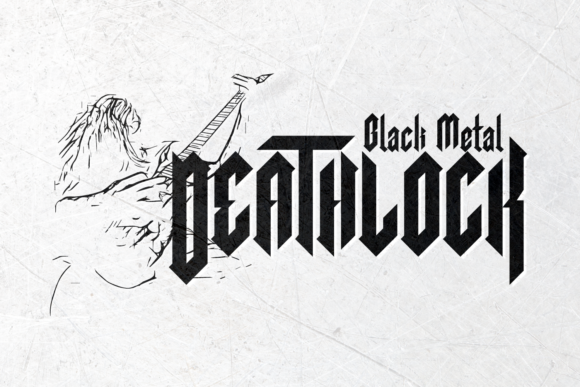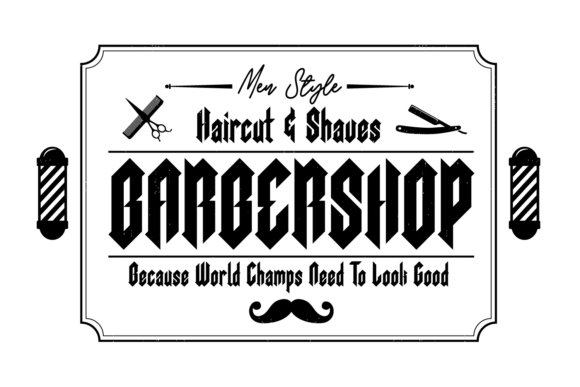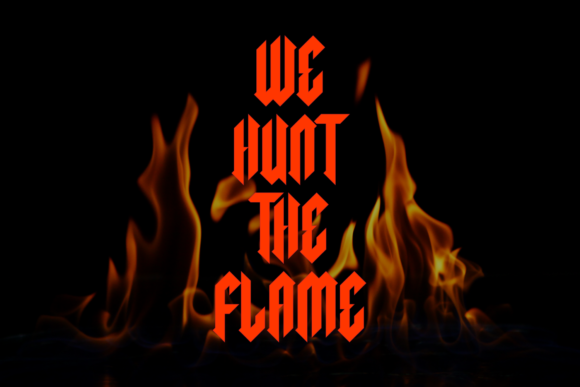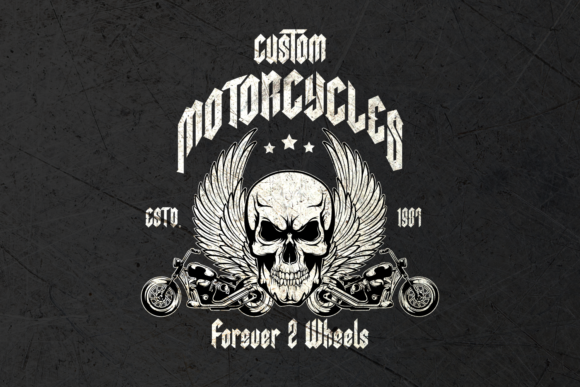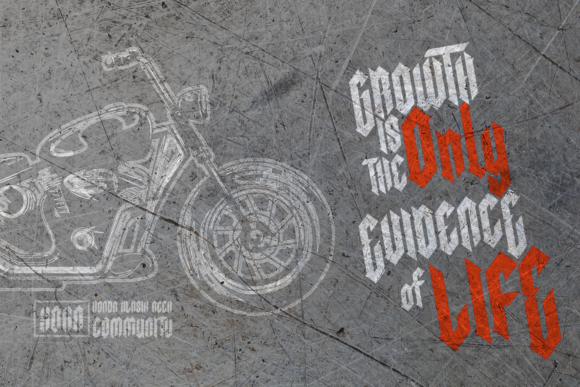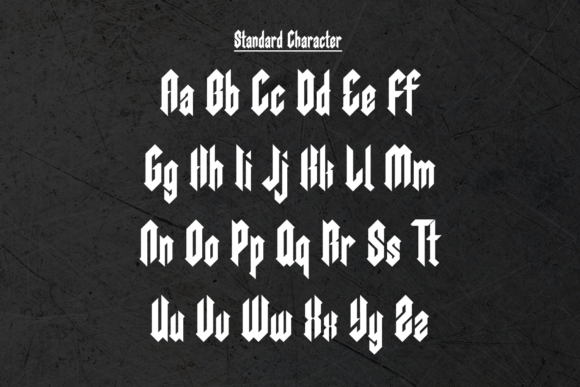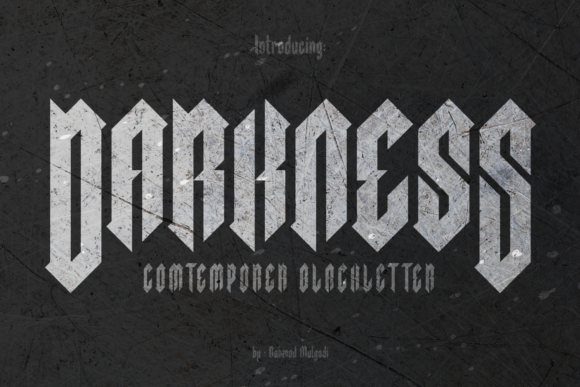
Unleash the Power of Darkness: A Contemporary Blackletter Font
Are you tired of using the same old fonts in your designs? Do you want to add a touch of elegance and sophistication to your projects? Look no further than Darkness, a simple yet striking blackletter font with a contemporary feel. In this article, we’ll explore the features and benefits of Darkness, and show you how it can take your designs to the next level.
What is Darkness Font?
Darkness is a modern blackletter font that combines traditional techniques with a fresh, contemporary aesthetic. Its sleek lines, elegant curves, and bold strokes make it perfect for a wide range of design applications, from logos and branding to packaging and advertising. Whether you’re a designer, craftsperson, or DIY enthusiast, Darkness is an excellent choice for anyone looking to add a touch of drama and sophistication to their work.
Key Features of Darkness Font
- Unique and Original Design: Darkness is a one-of-a-kind font that will set your designs apart from the crowd. Its distinctive blackletter style is both classic and modern, making it perfect for a wide range of projects.
- Contemporary Feel: Unlike traditional blackletter fonts, Darkness has a sleek, modern aesthetic that’s perfect for designs that require a bit of edge.
- Highly Versatile: Darkness is suitable for a wide range of design applications, including logos, branding, packaging, advertising, and more.
- Easily Readable: Despite its bold, dramatic style, Darkness is surprisingly easy to read, making it perfect for body text as well as headlines.
Benefits of Using Darkness Font
So why choose Darkness for your designs? Here are just a few benefits of using this amazing font:
- Adds Drama and Sophistication: Darkness adds a touch of elegance and refinement to any design, making it perfect for high-end brands and luxury products.
- Stand Out from the Crowd: With its unique and original design, Darkness is sure to set your designs apart from the competition.
- Perfect for Creative Projects: Whether you’re a designer, craftsperson, or DIY enthusiast, Darkness is an excellent choice for any creative project that requires a bit of flair.
How to Use Darkness Font in Your Designs
Using Darkness in your designs is easy. Here are a few tips to get you started:
- Pair with Other Fonts: Darkness looks great when paired with other fonts, such as sans-serif fonts for a bold, modern look.
- Experiment with Colors: Darkness looks amazing in a range of colors, from bold blacks and dark grays to rich golds and bronzes.
- Use for Headlines and Body Text: Darkness is easy to read, making it perfect for both headlines and body text.